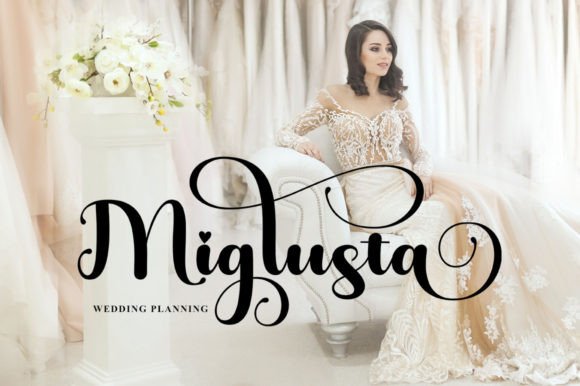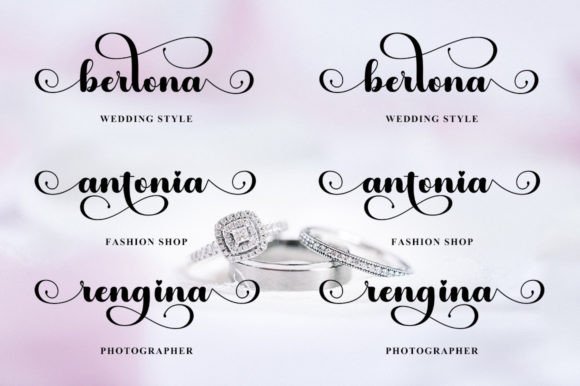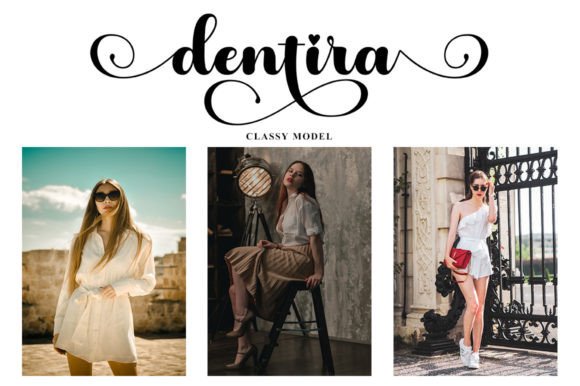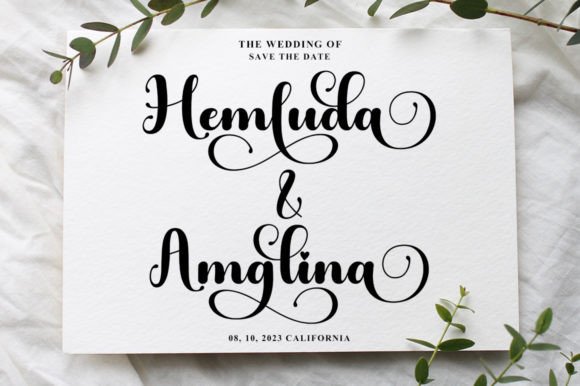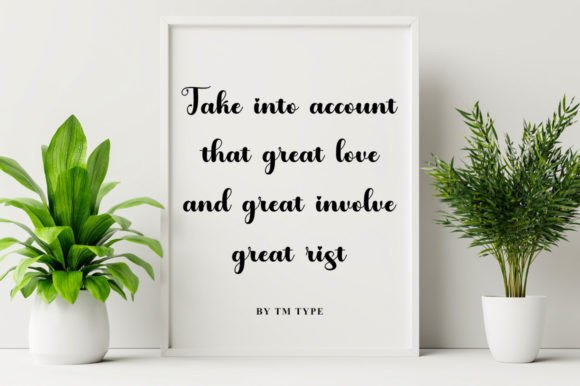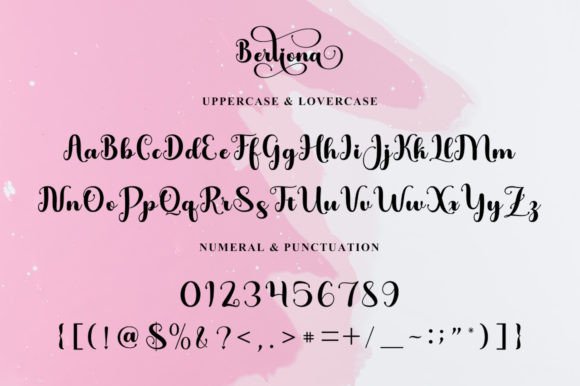
The Enchanting Berliona Font: A Designer’s Dream Come True
Here’s what I love about the Berliona Font:
- ✨ Elegant and charming feel, perfect for wedding invitations, thank you cards, and quotes
- ✅ PUA encoded, making it easy to access all the amazing glyphs and ligatures
- ✅ Versatile and can be used for various design projects, including logos, business cards, and greeting cards
- 🤔 Some users may find the font a bit too ornate for certain design projects
The Designer Inspiration Behind Berliona Font
The Berliona Font was created with the intention of providing a beautiful, elegant, and charming font for designers and crafters. The font’s design is inspired by traditional calligraphy and handwriting, making it perfect for adding a touch of sophistication to any design project.
| What is the Berliona Font best used for? | The Berliona Font is perfect for wedding invitations, thank you cards, quotes, greeting cards, logos, business cards, and every other design that needs a handwritten touch. |